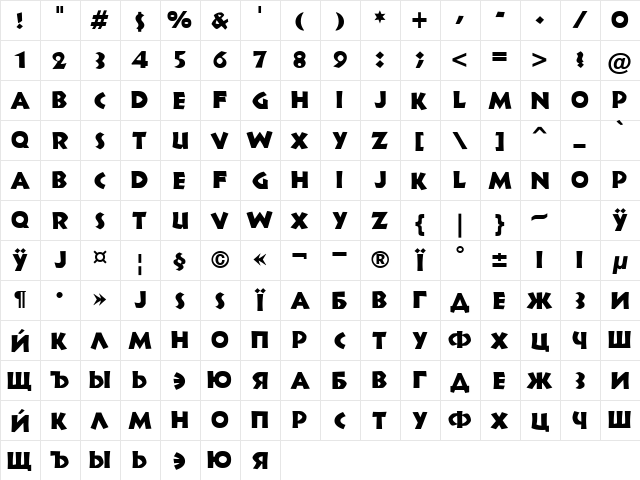
Newland Regular
Design Context for Newland Typeface
Newland offers clean, dependable letterforms without strong stylistic allegiance, making it a practical choice for designers who need flexibility.